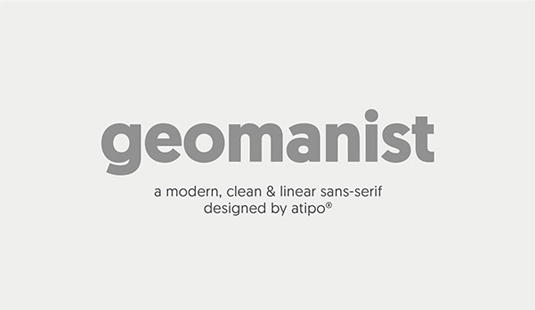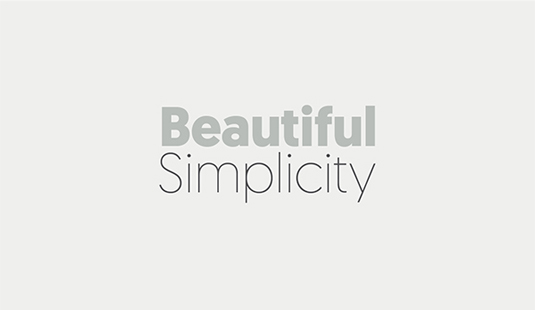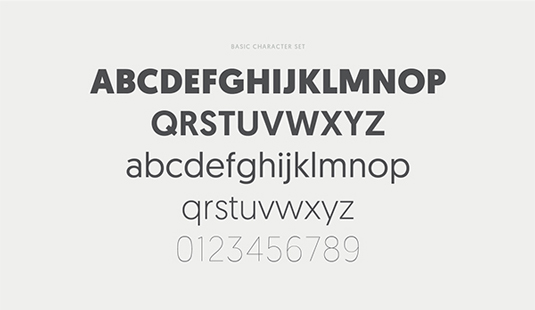
Font of the day: Geomanist
Geomanist from atipo
Kicking off this week's font of the day is geomanist, a contemporary sans serif design from graphic and type design studio atipo. A clean design, geomanist will add a touch of elegance to any project.